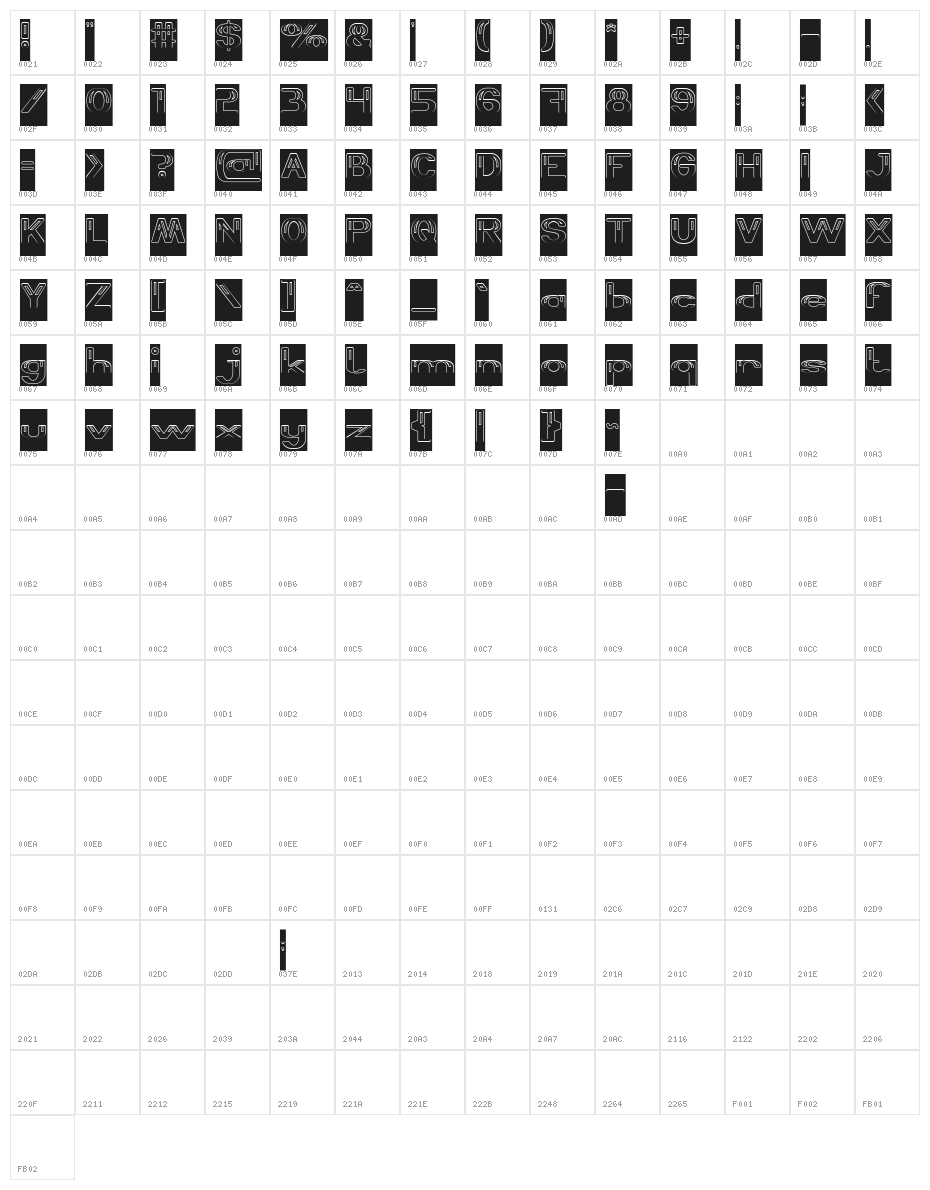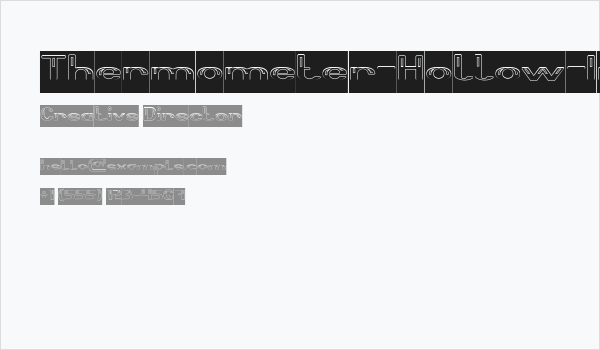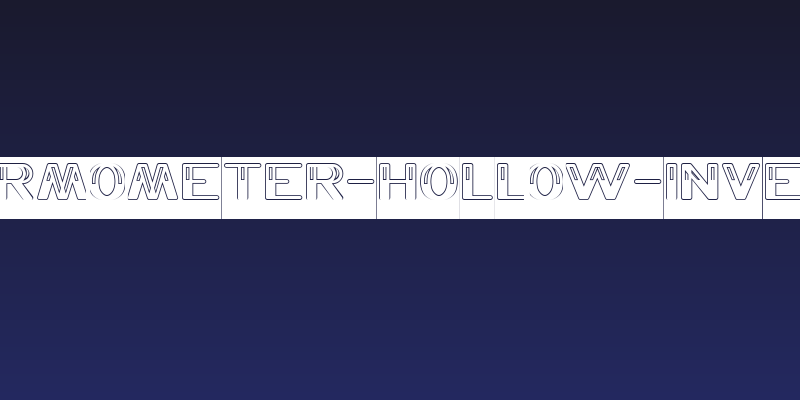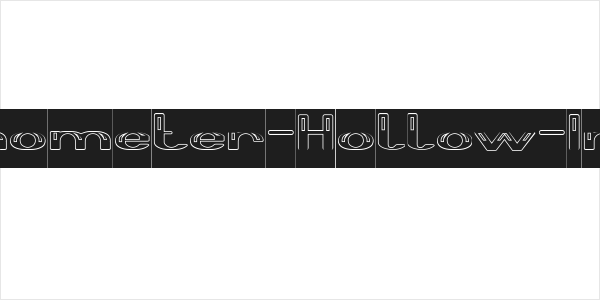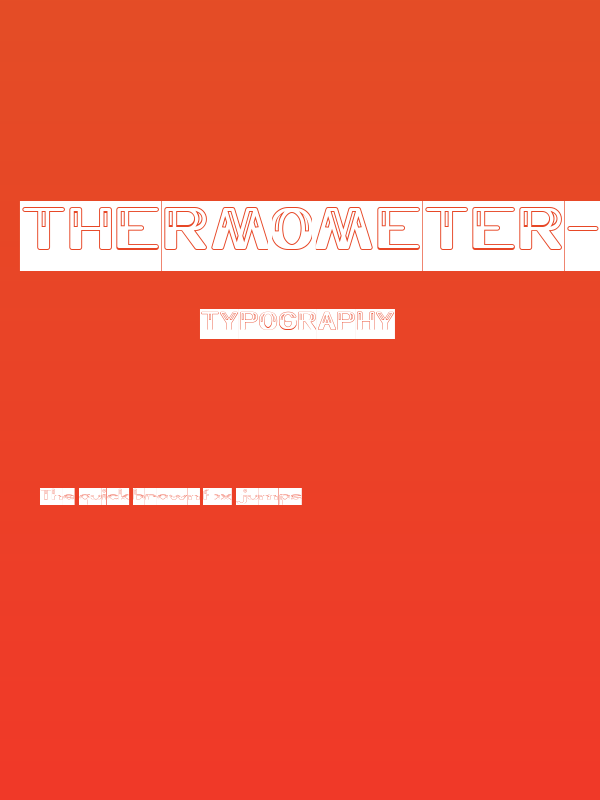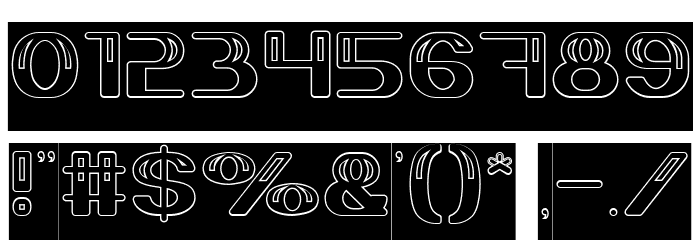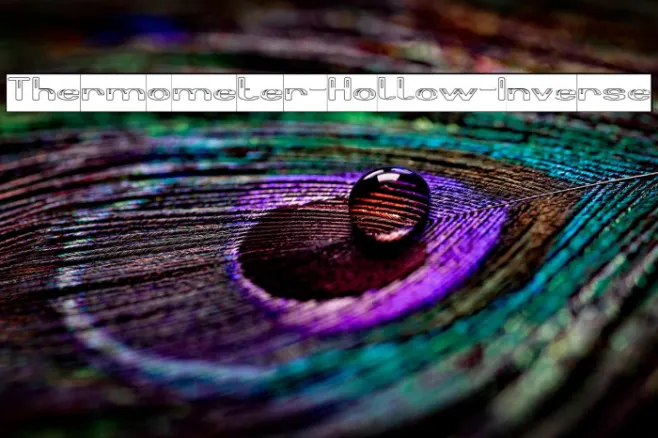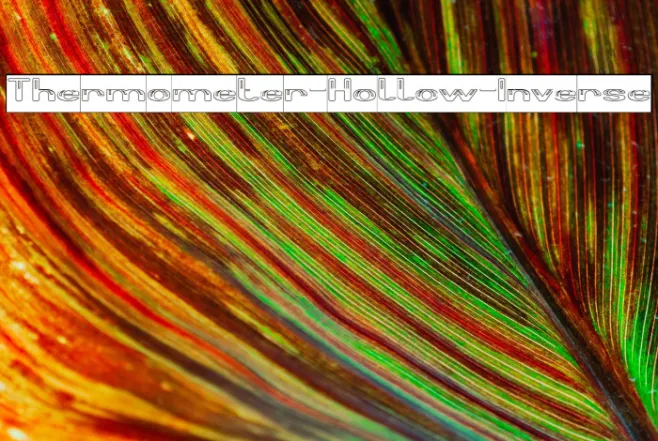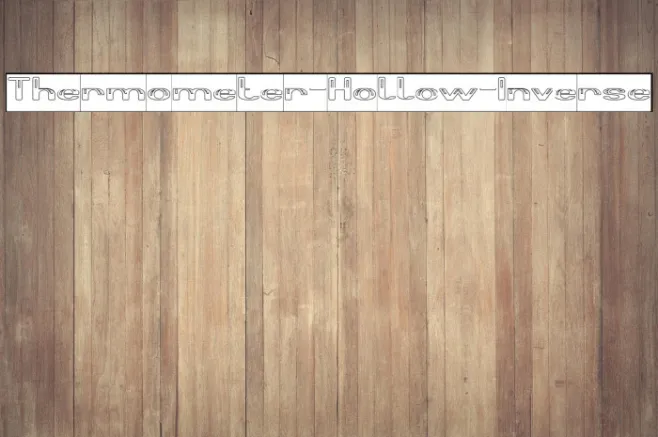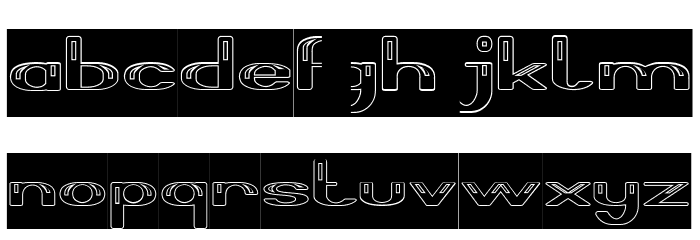
Thermometer-Hollow-Inverse Font
Thermometer-Hollow-Inverse Description
This font features a unique hollow design with an inverse style, creating a striking visual effect. The uppercase and lowercase letters are crafted with a consistent outline that gives a sense of depth and dimension. The numerals and special characters maintain this hollow aesthetic, ensuring uniformity across all glyphs. The font's geometric structure is both modern and playful, making it stand out in any design. The clean lines and open spaces within each character provide a contemporary feel, while the bold outlines ensure readability. This font is ideal for projects that require a distinctive and eye-catching typeface.
THERMOMETER-HOLLOW-INVERSE UPPERCASE
THERMOMETER-HOLLOW-INVERSE LOWERCASE
THERMOMETER-HOLLOW-INVERSE OTHER CHARS